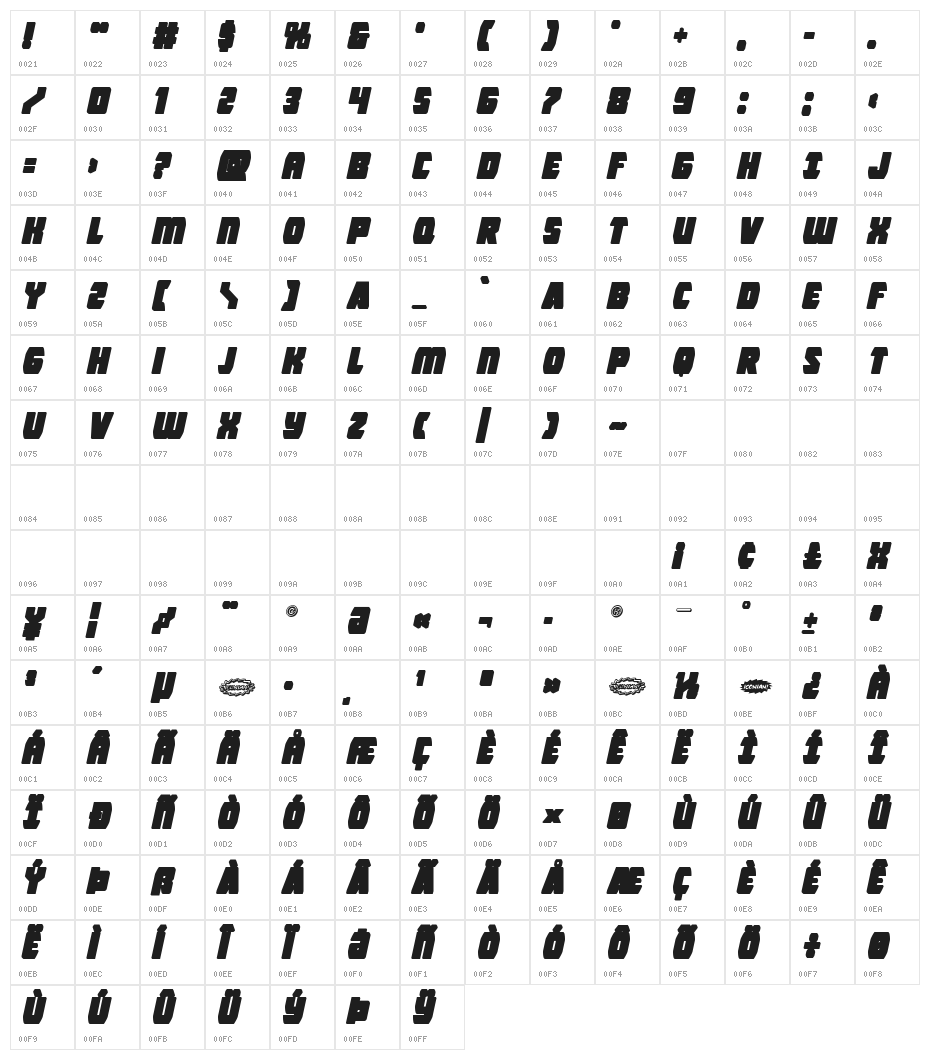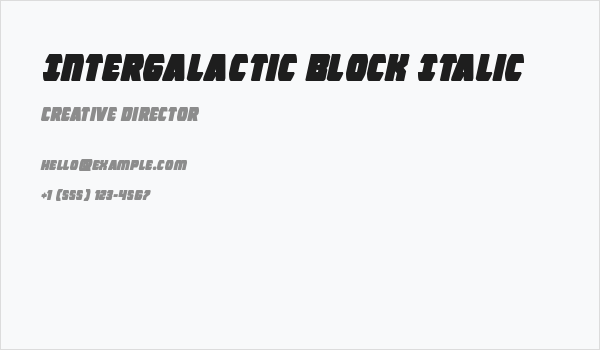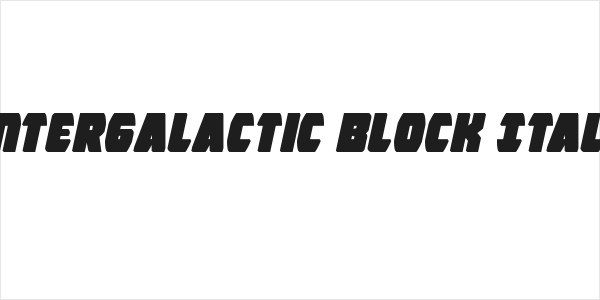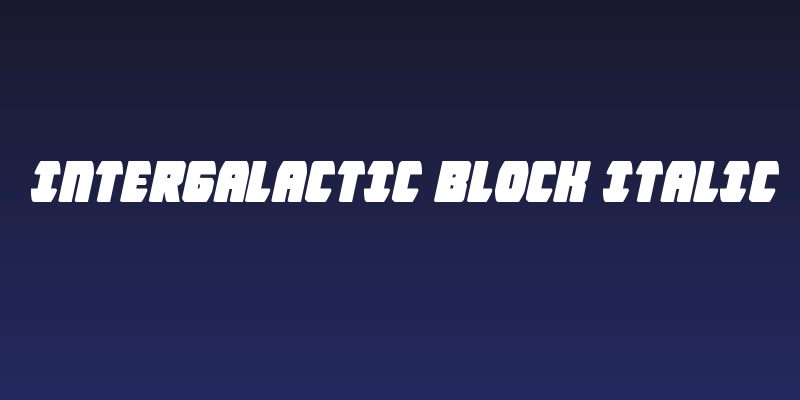
Intergalactic Block Italic Font
Intergalactic Block Italic Description
This font features a bold, blocky design with a futuristic flair. The characters are italicized, adding a dynamic and forward-leaning appearance. The strokes are thick and consistent, providing a strong visual impact. The overall style is modern and slightly aggressive, making it suitable for attention-grabbing headlines or branding. The uppercase and lowercase letters maintain a uniform width, contributing to a cohesive look. The numerals and special characters are designed with the same boldness, ensuring consistency across all text elements. This font's unique style is perfect for projects that require a bold statement.
| Proposed Projects | Ideal for sci-fi themed posters, video game titles, and branding that requires a strong, modern presence. |